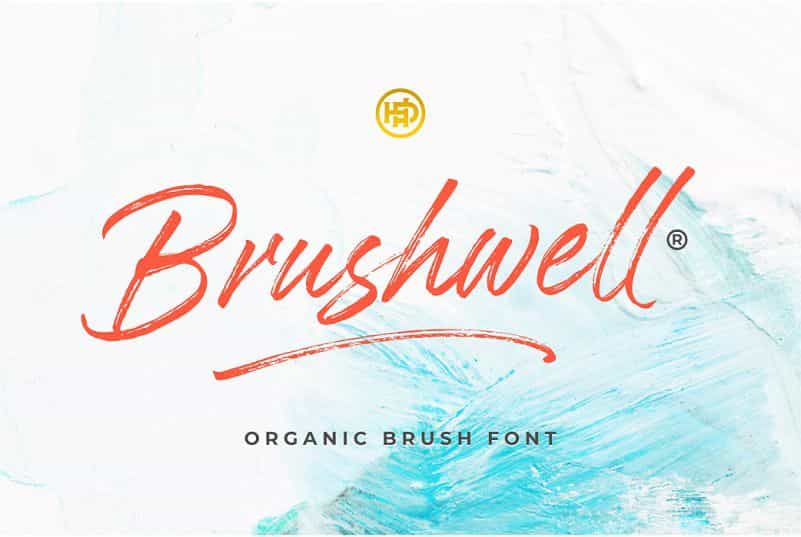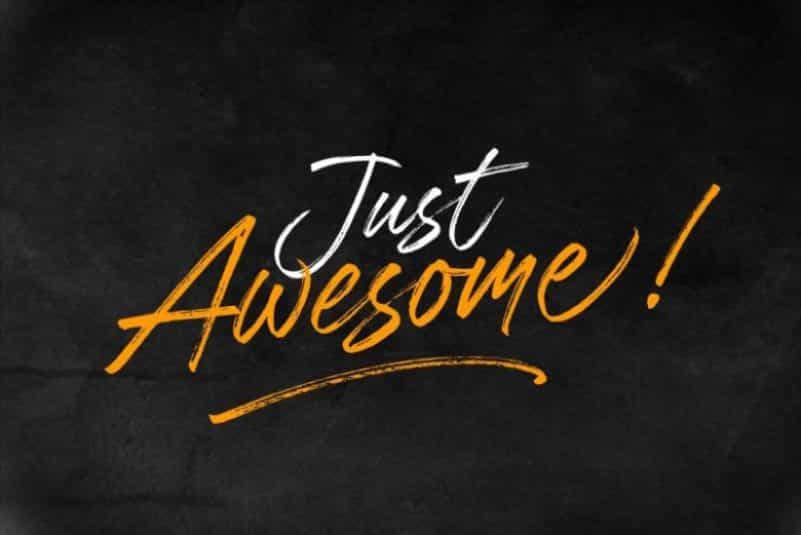
Brushwell is a playful and wild brush script with organic movement. It’s drawn with long organic lines by hand It has no restrictions or limitations put on it. It’s suitable for personal branding images, handwritten quotes, homeware designs, product packaging – or as a modern stylish text layer to any background image.